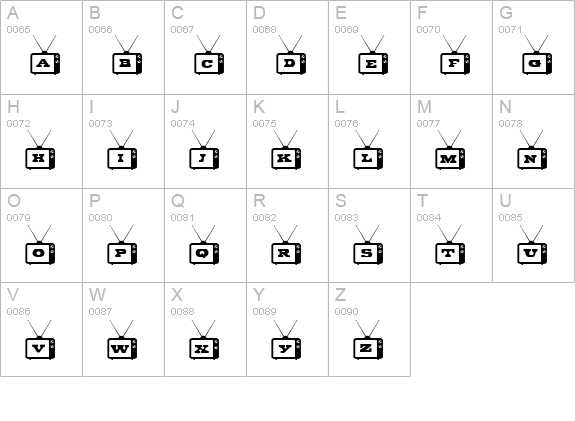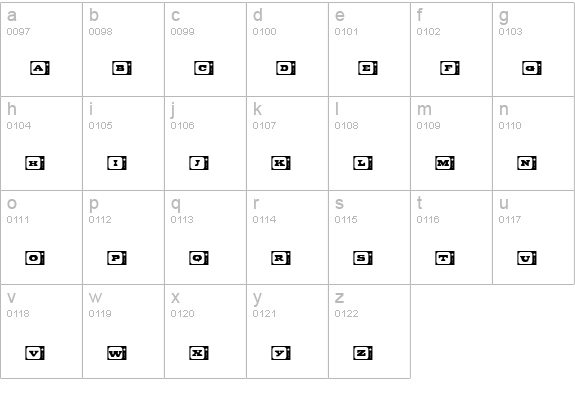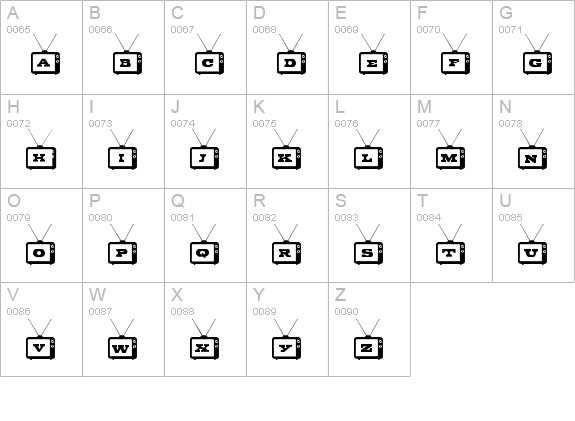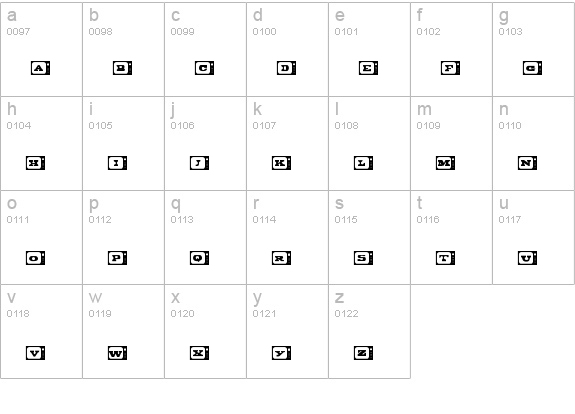
Tiny Tube Font Details
Introducing Tiny Tube, a delightful and captivating font that is sure to make a big impact on your designs. This charming typeface boasts a unique combination of sleek and rounded letterforms, creating a playful yet modern aesthetic. With its compact design and subtle curves, Tiny Tube adds a touch of elegance and simplicity to any project. Whether you're designing a logo, creating eye-catching headlines, or crafting beautiful typography for a website or social media post, Tiny Tube will effortlessly elevate your work to new heights. Its versatility allows it to seamlessly adapt to various design styles, making it perfect for both professional and personal projects. One of the best features of Tiny Tube is that it is available for free! That's right, you can download this incredible font at absolutely no cost from FontsMarket.com. This means that you can enjoy all the benefits of Tiny Tube without breaking the bank. With its high-quality design and accessibility, Tiny Tube is a font that is truly a gift to designers and creatives alike. So why wait? Discover the beauty and versatility of Tiny Tube today. Download this amazing font for free at FontsMarket.com and unleash your creativity like never before. Let Tiny Tube be the perfect addition to your font collection, bringing a touch of elegance and playfulness to all your design projects.